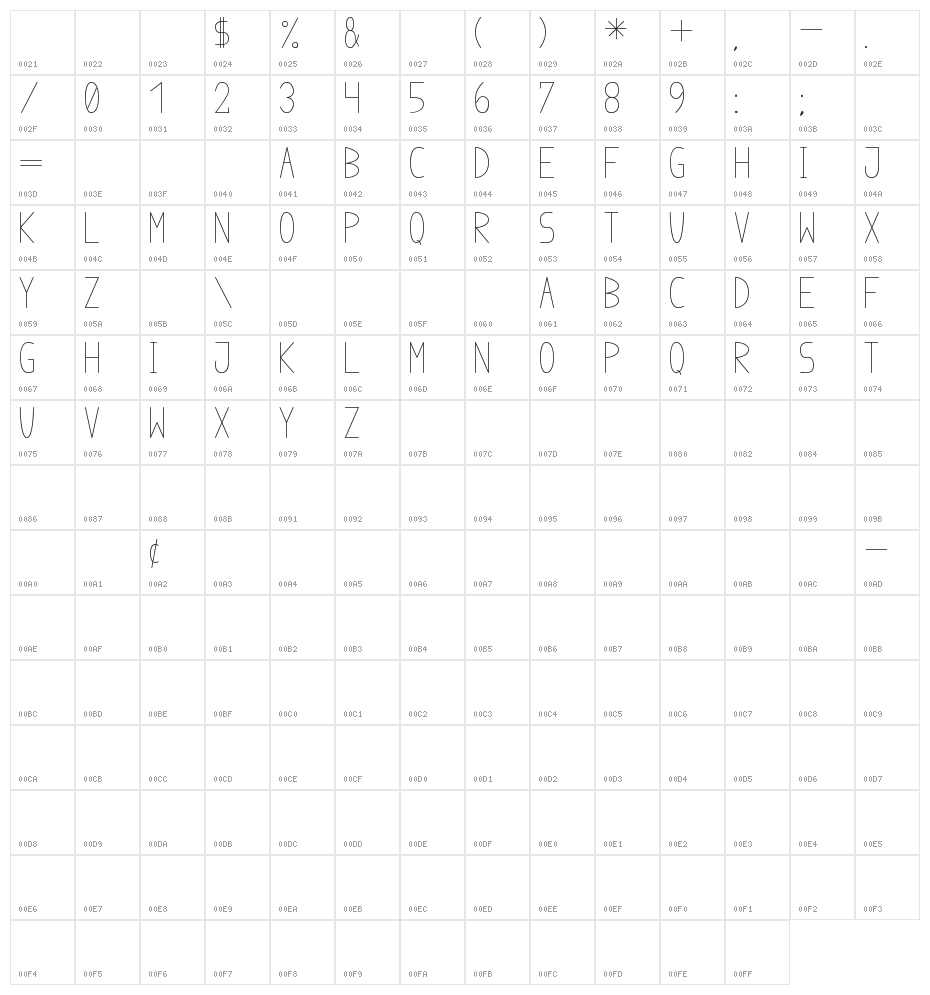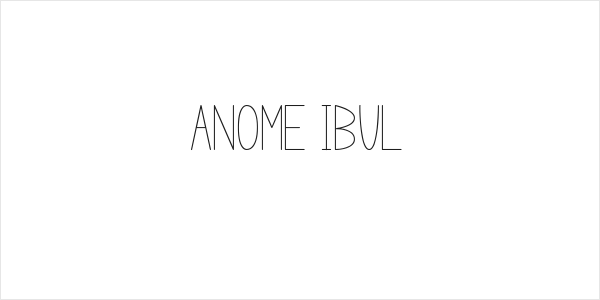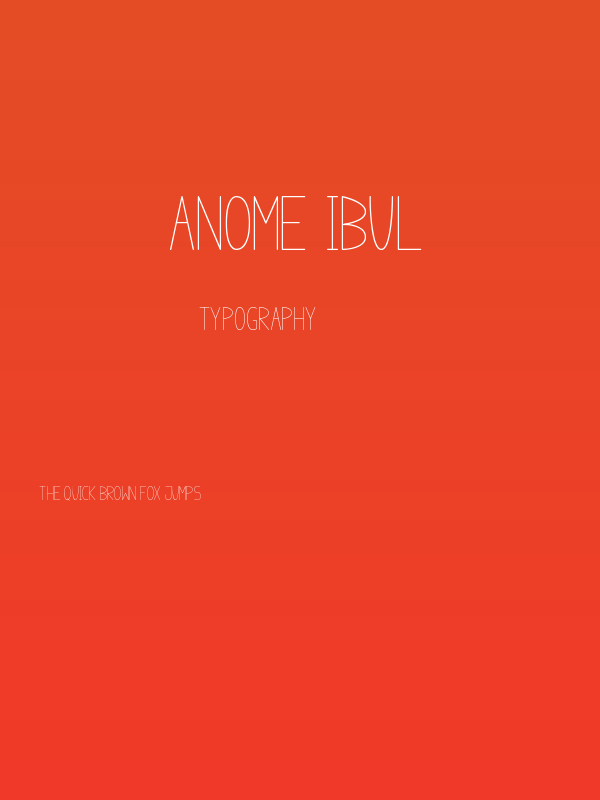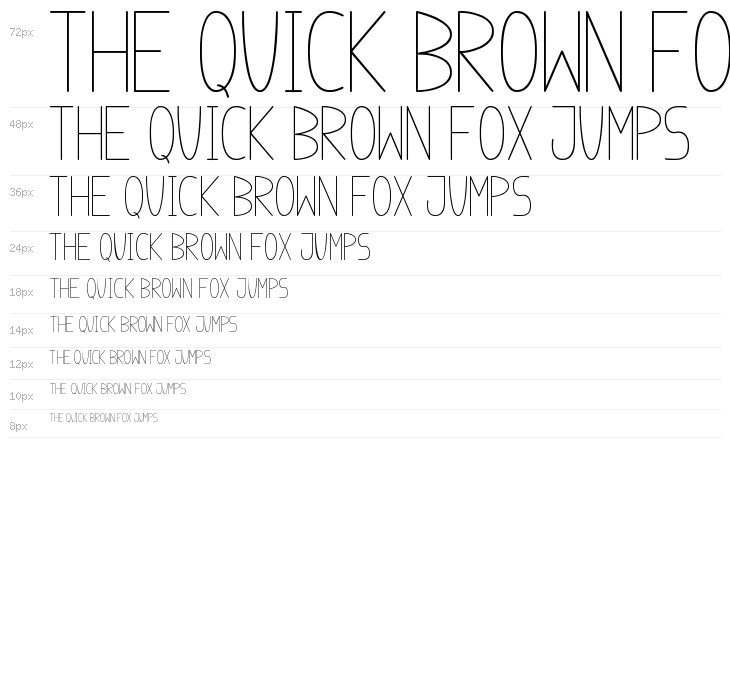
anome ibul Font
anome ibul Description
This font features a clean and minimalist design with thin, elongated letterforms that convey a sense of modern elegance. The characters are uniformly narrow, with a consistent stroke width that gives the font a sleek and sophisticated appearance. The uppercase and lowercase letters maintain a harmonious balance, while the numerals and special characters are crafted with the same attention to detail. The font's simplicity and clarity make it highly legible, even at smaller sizes, and its geometric shapes add a contemporary touch to any design.
| Use Case | Headlines, Logos, Body text |
| Proposed Projects | Ideal for modern branding, minimalist posters, elegant invitations, and sleek website headers. |